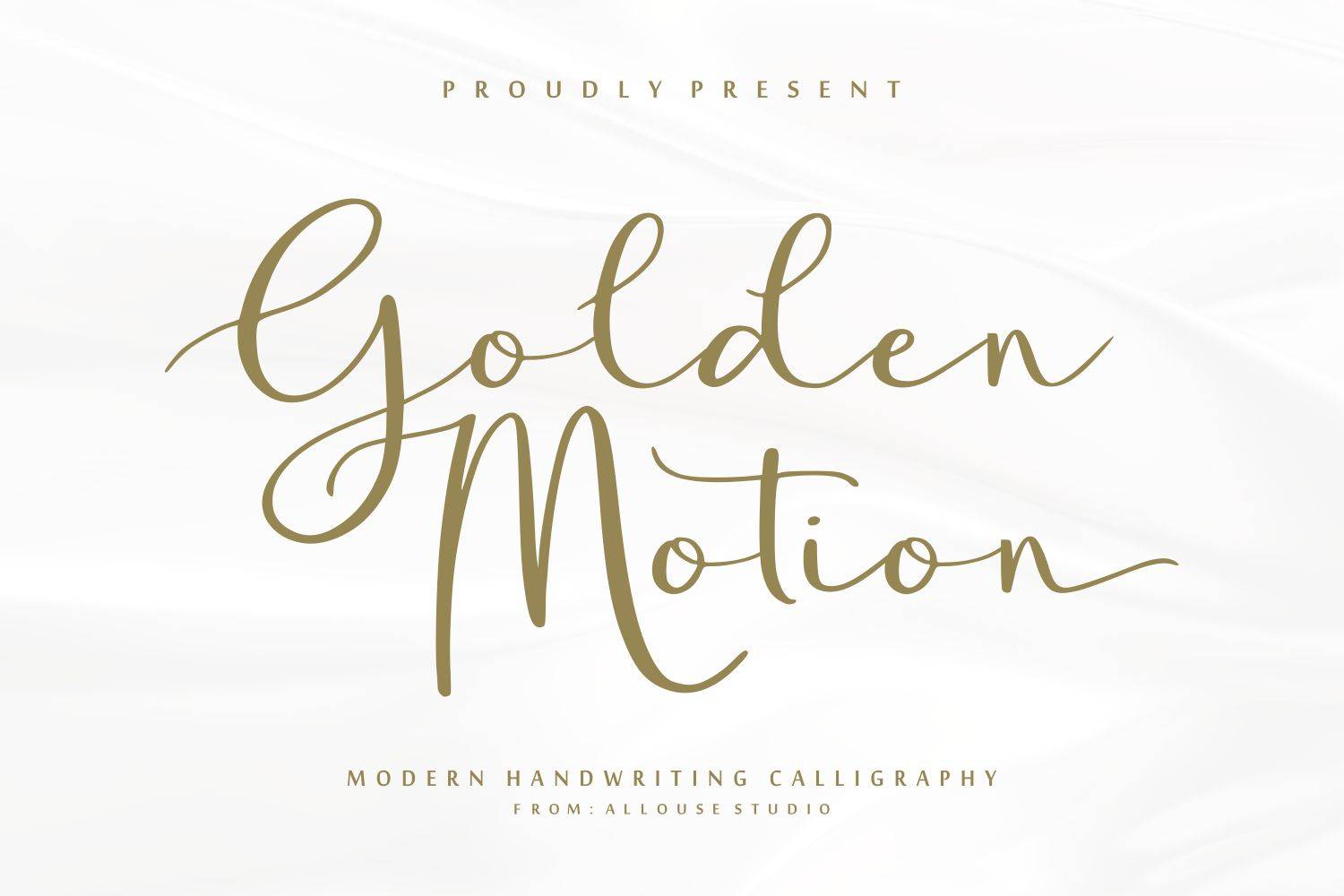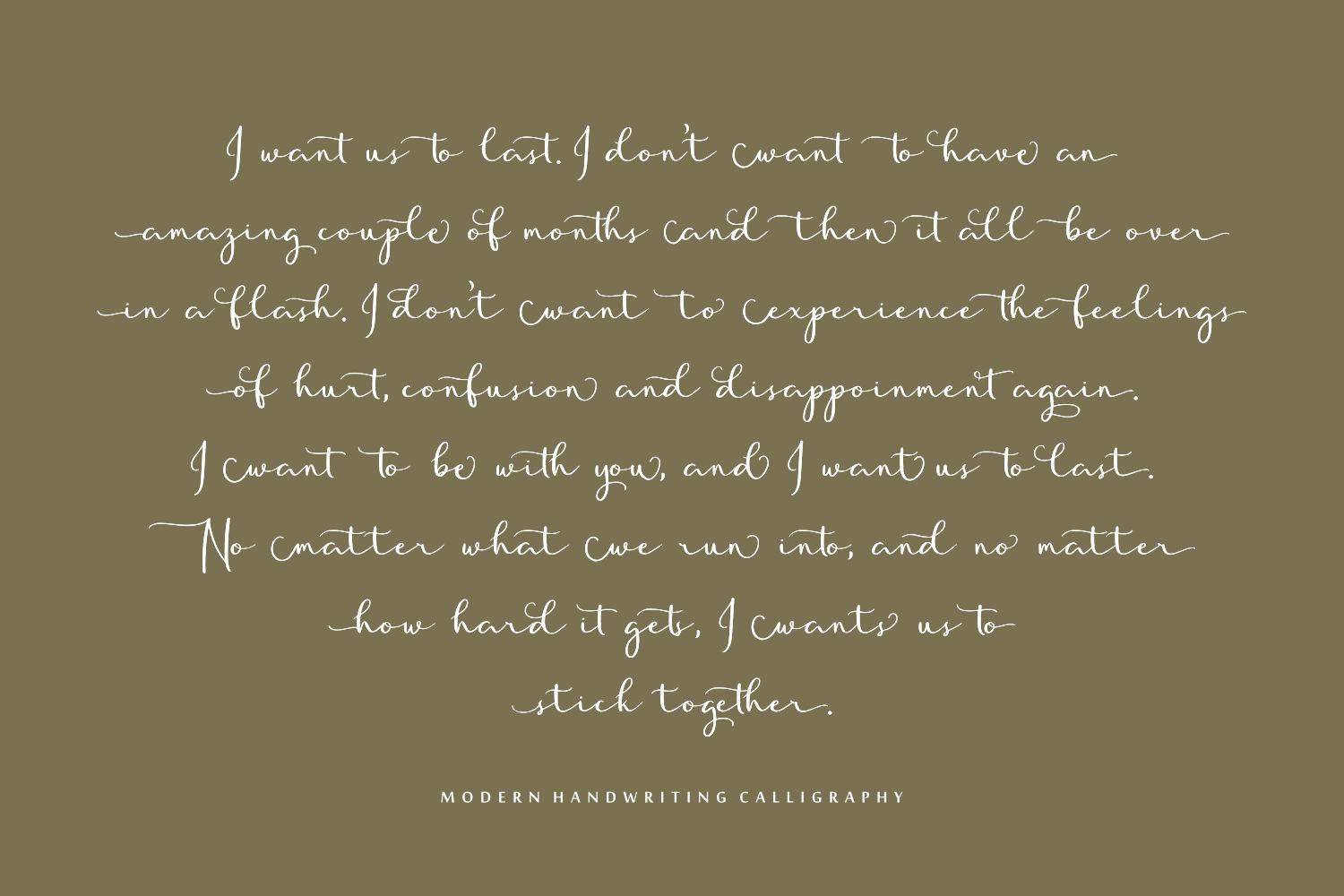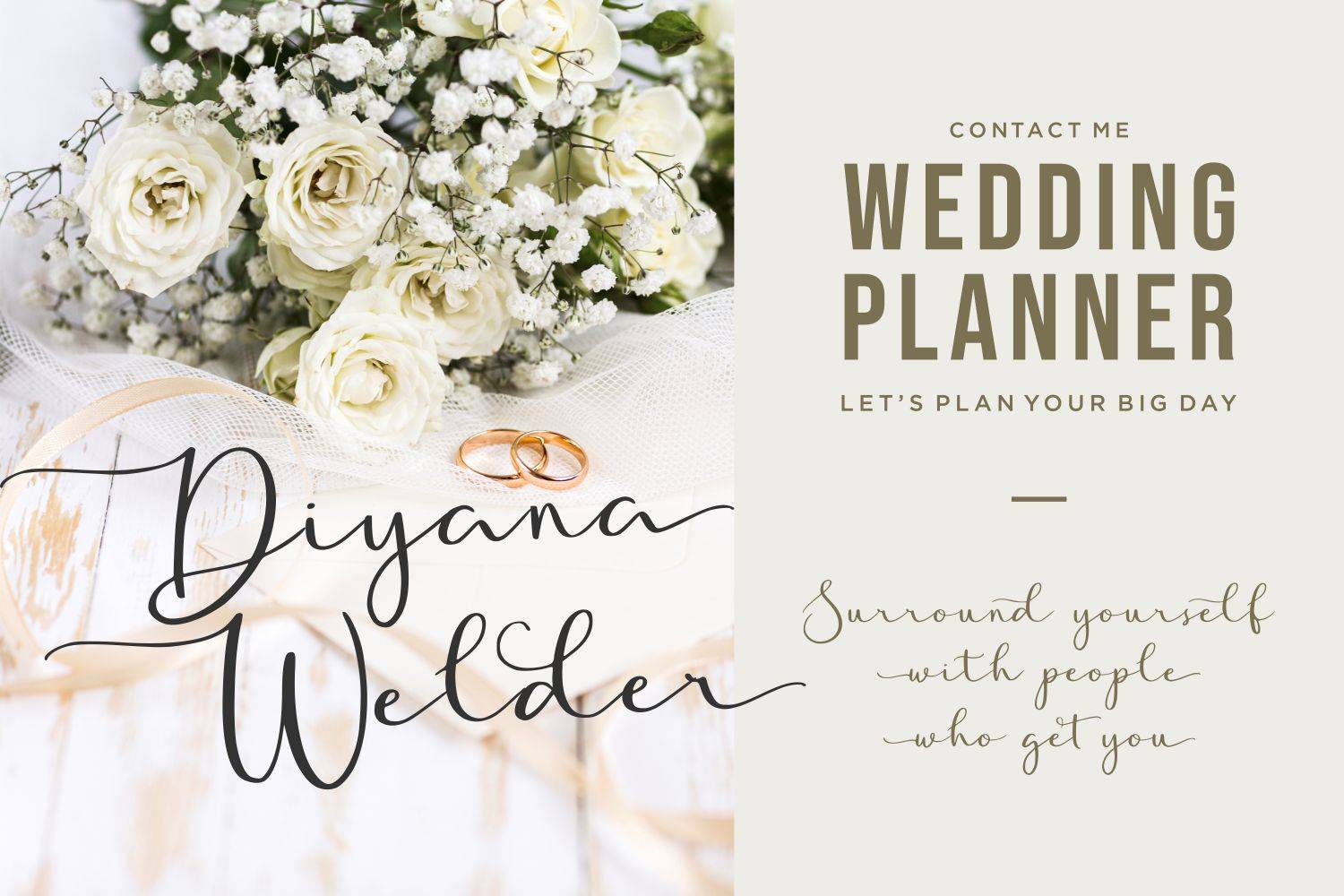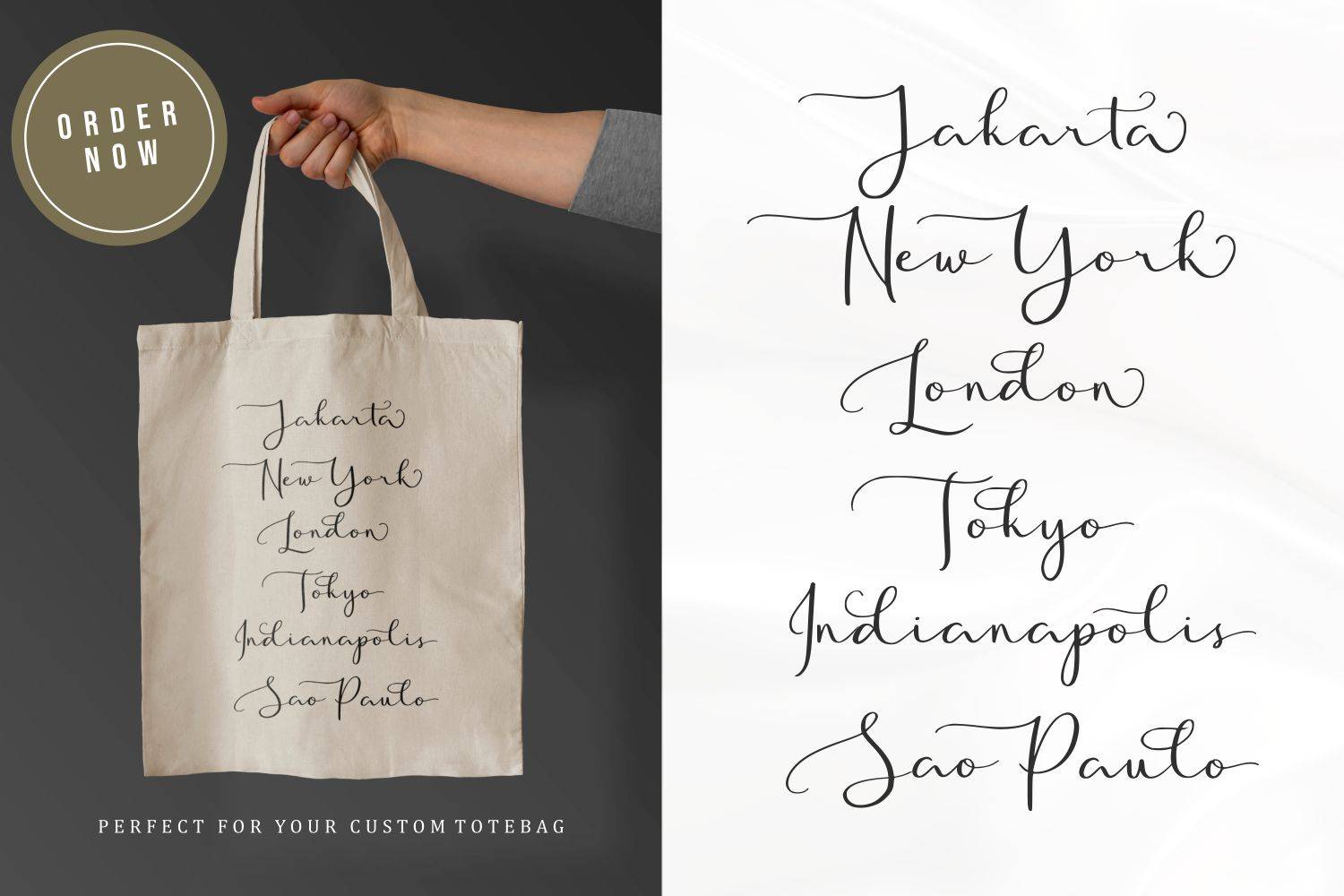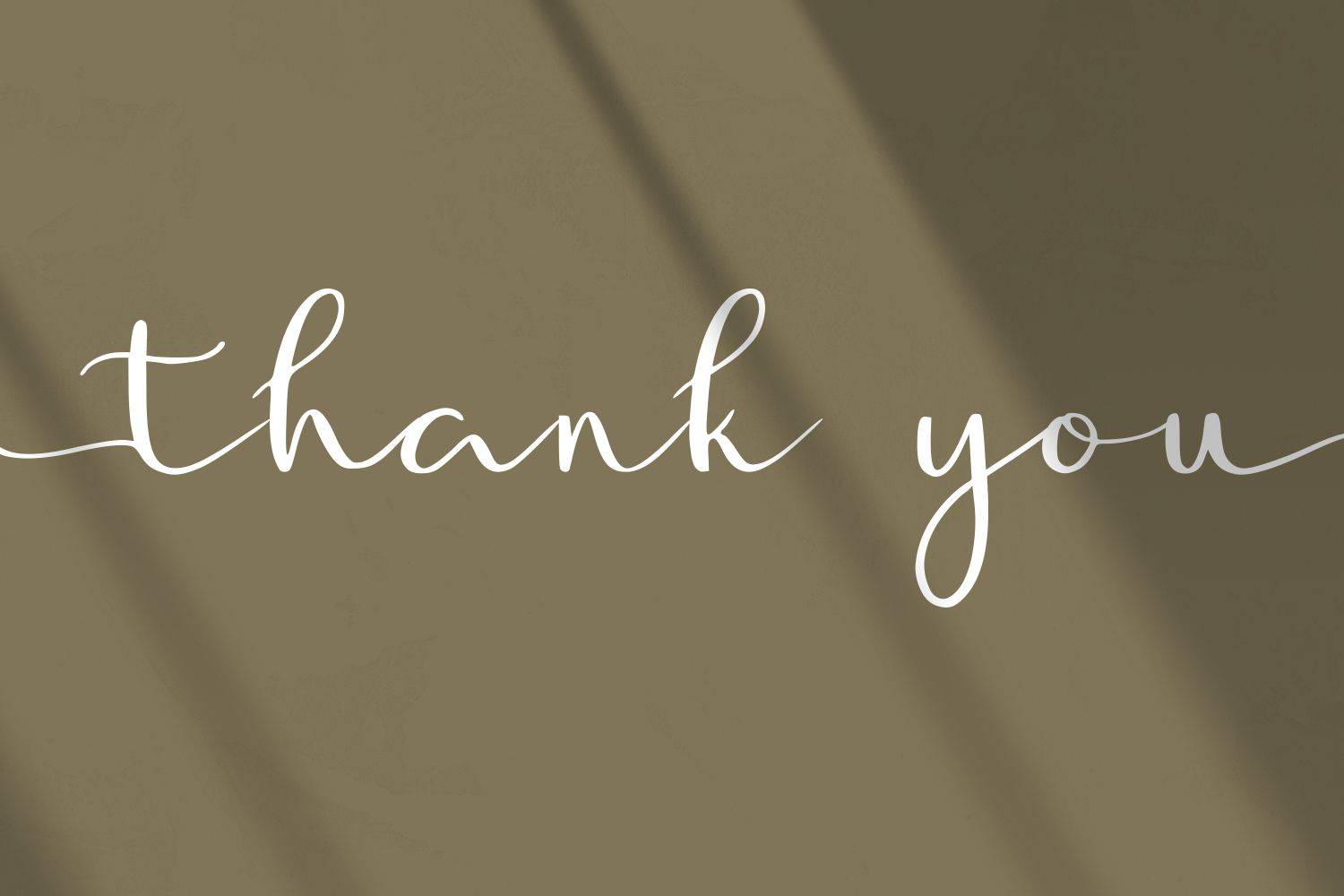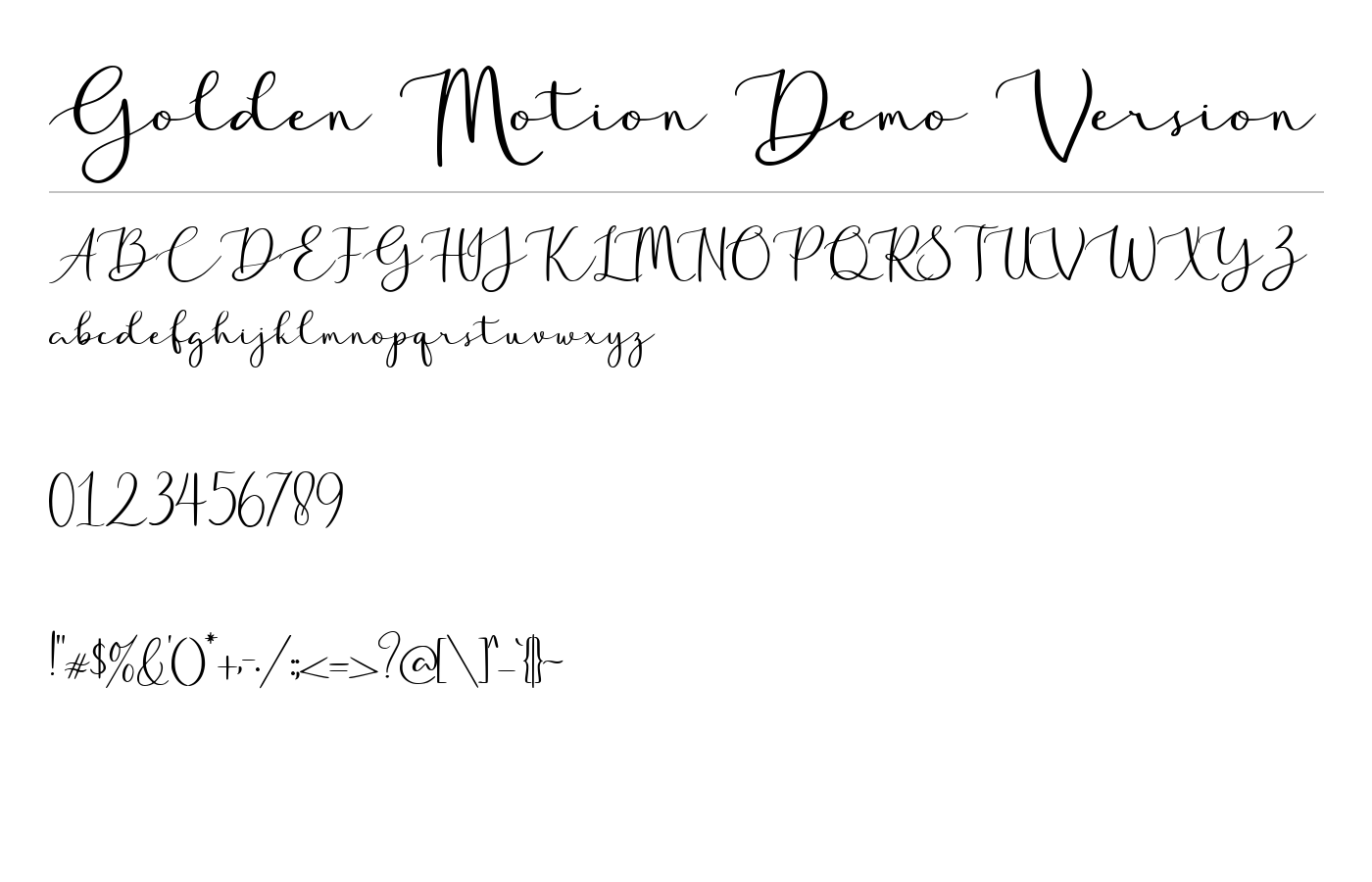
Golden Motion is an elegant script font characterized by its delicate, flowing strokes and graceful, handwritten feel. Its thin, smooth lines and organic shapes convey a sense of sophistication and charm, making it ideal for upscale branding, wedding invitations, and stylish editorial designs. This font adds a personal, artistic touch that enhances romantic or luxurious visual stories.
Golden Motion Font
About Golden Motion Font